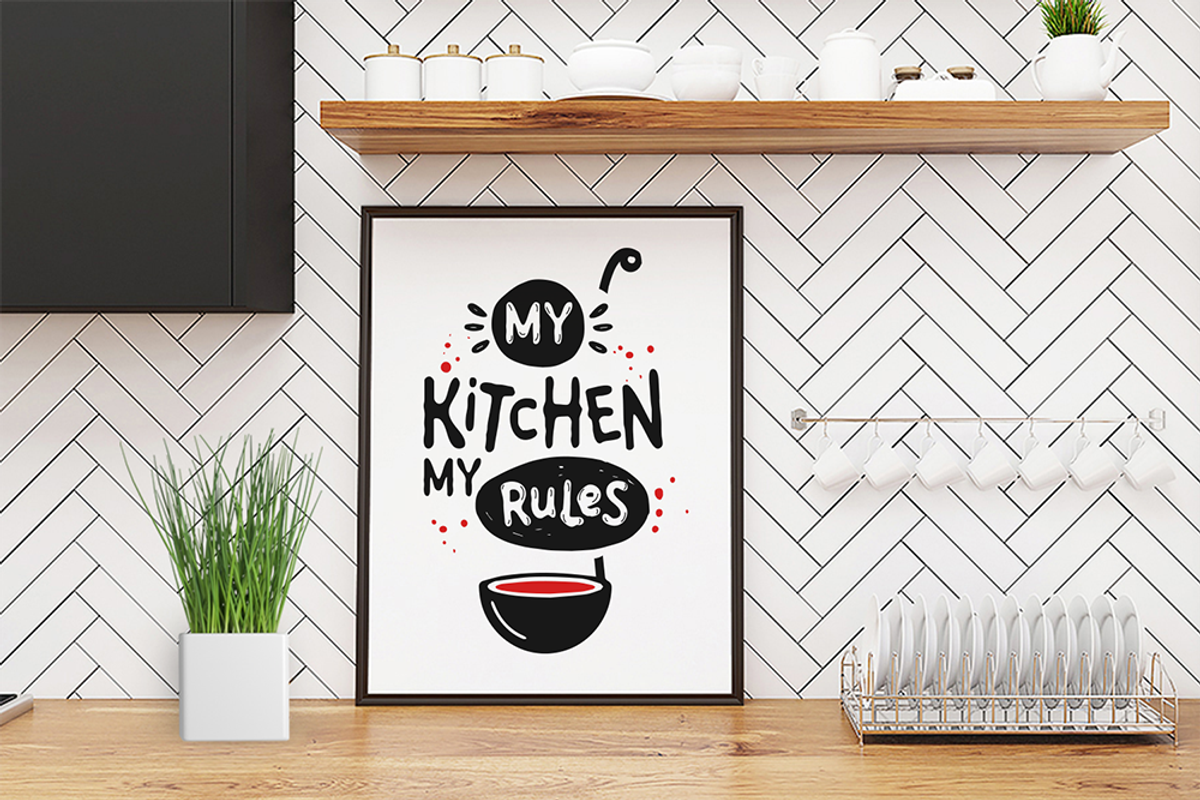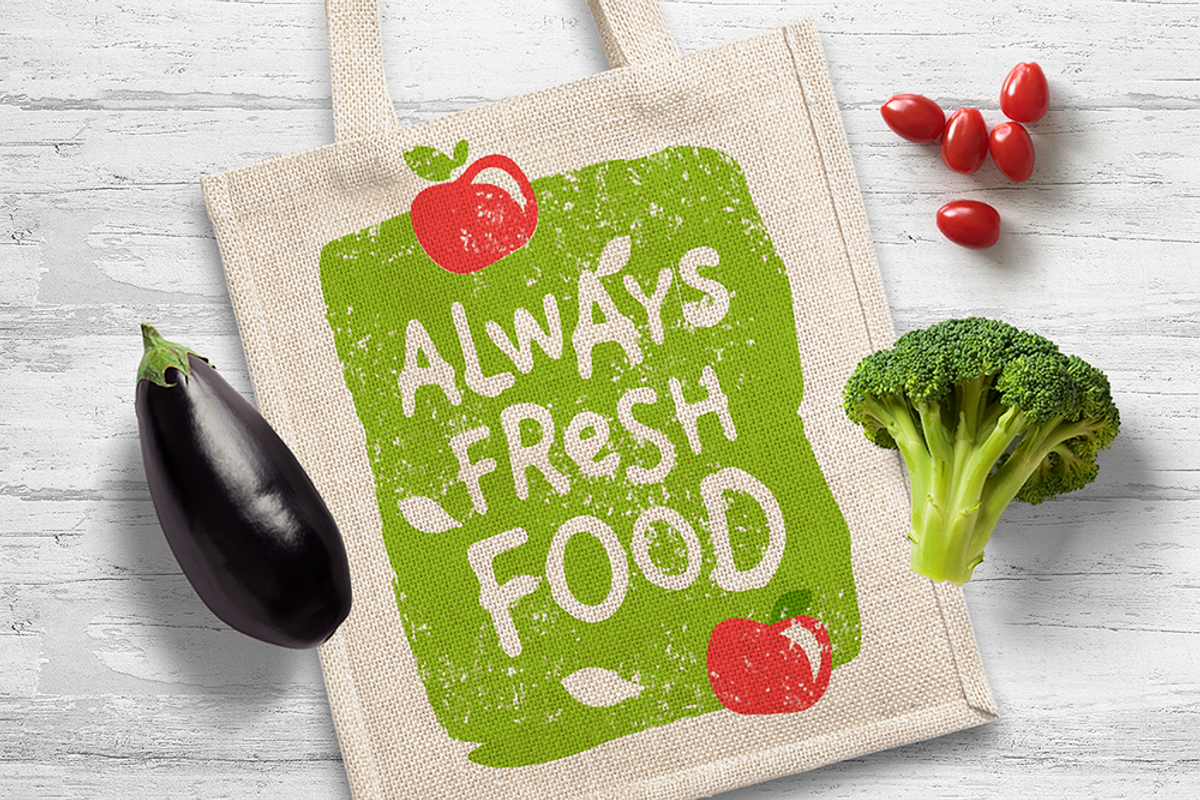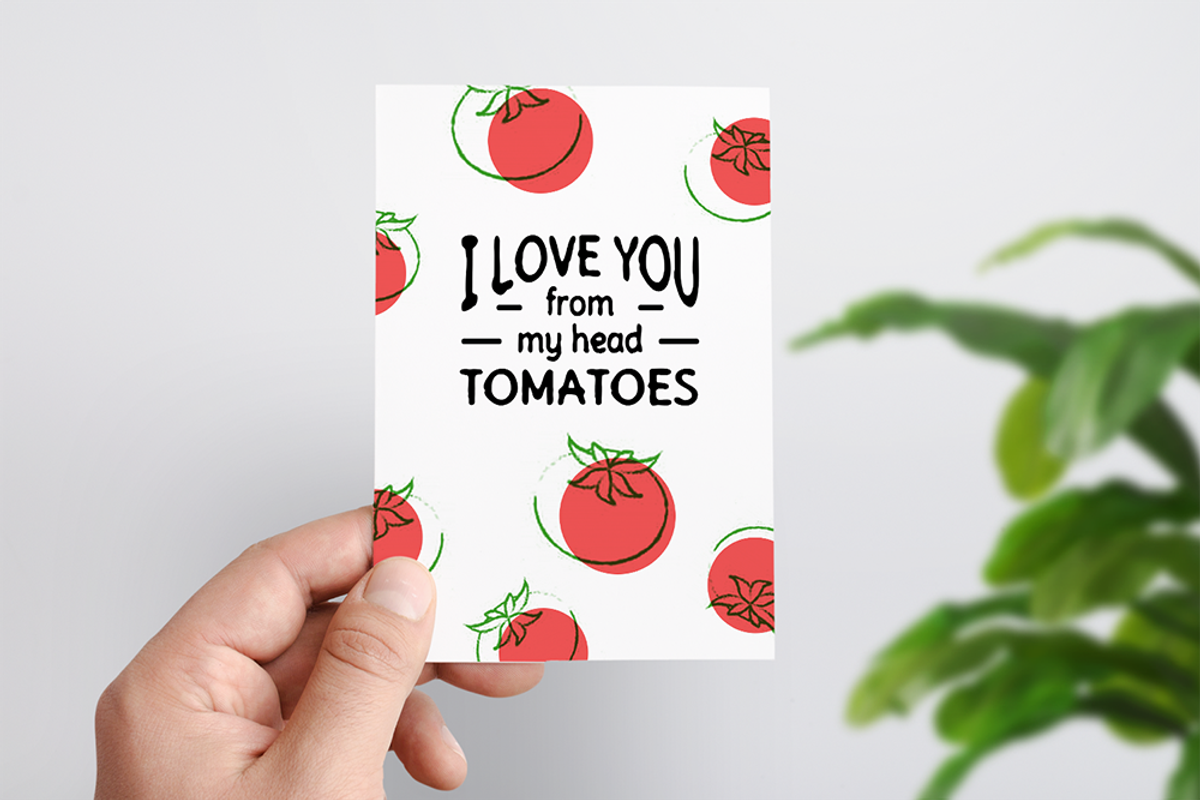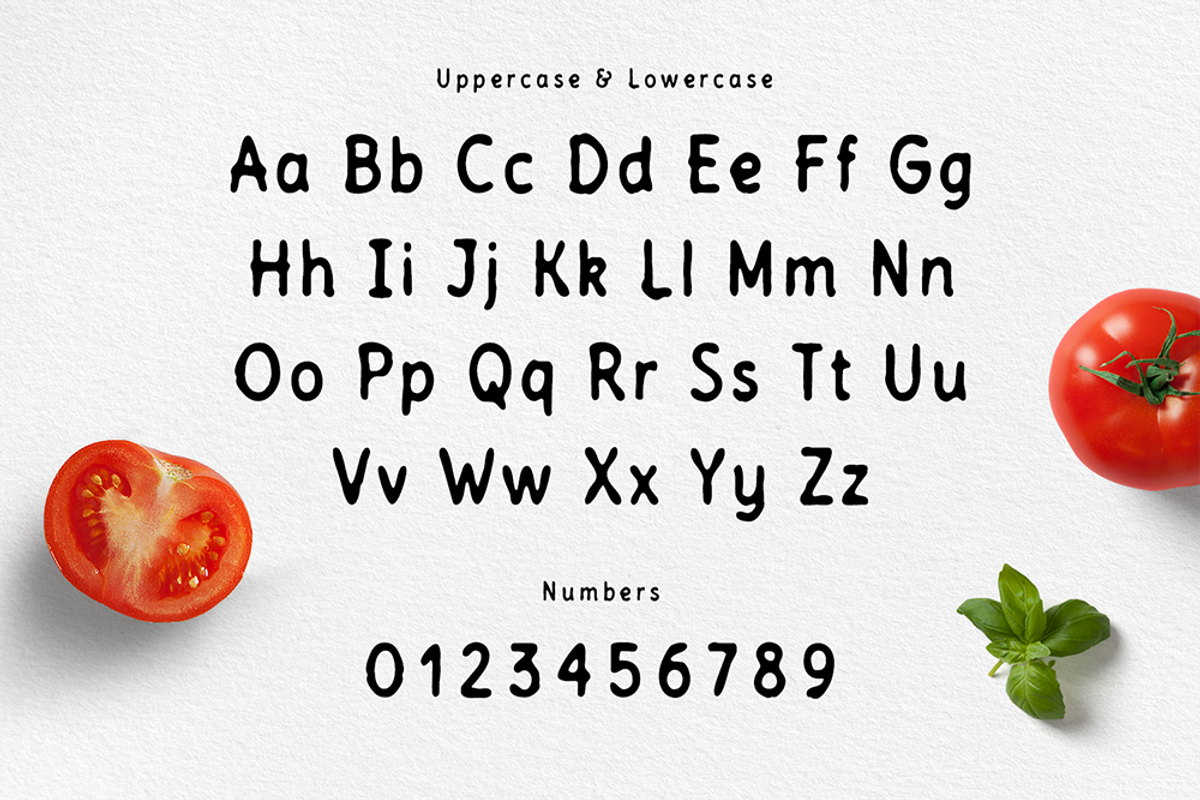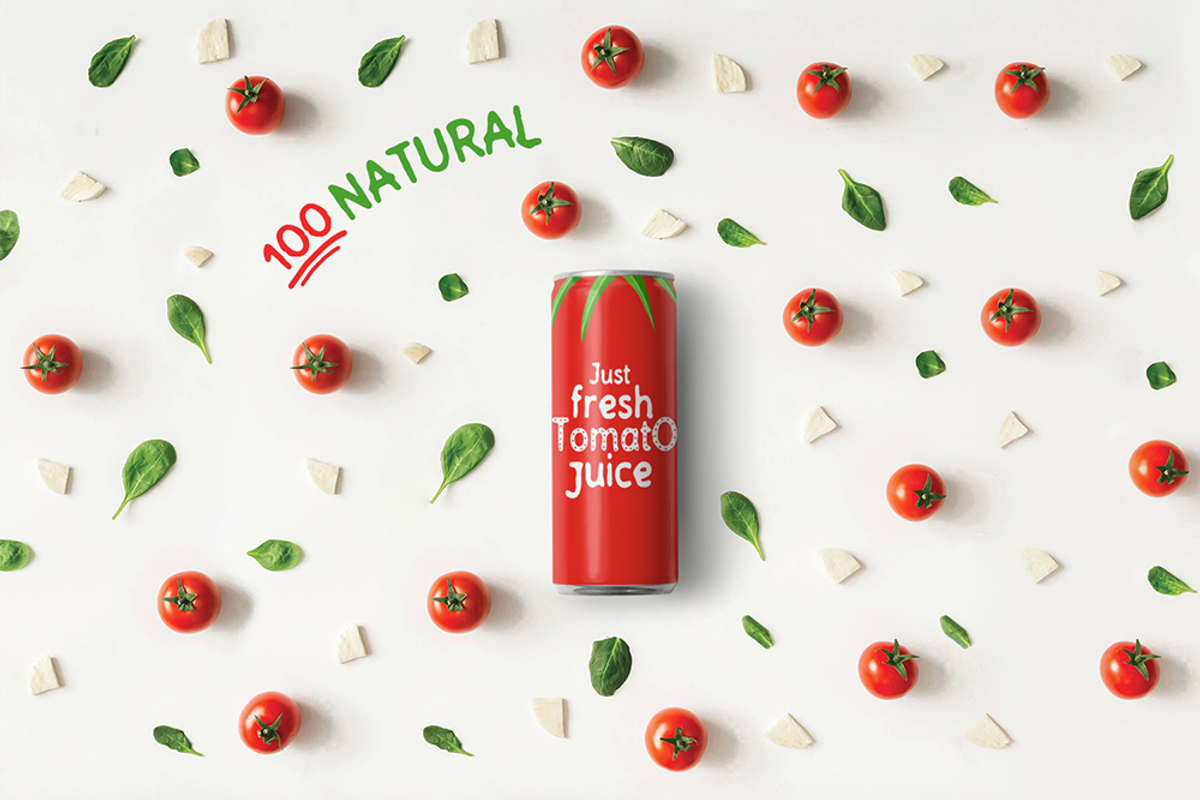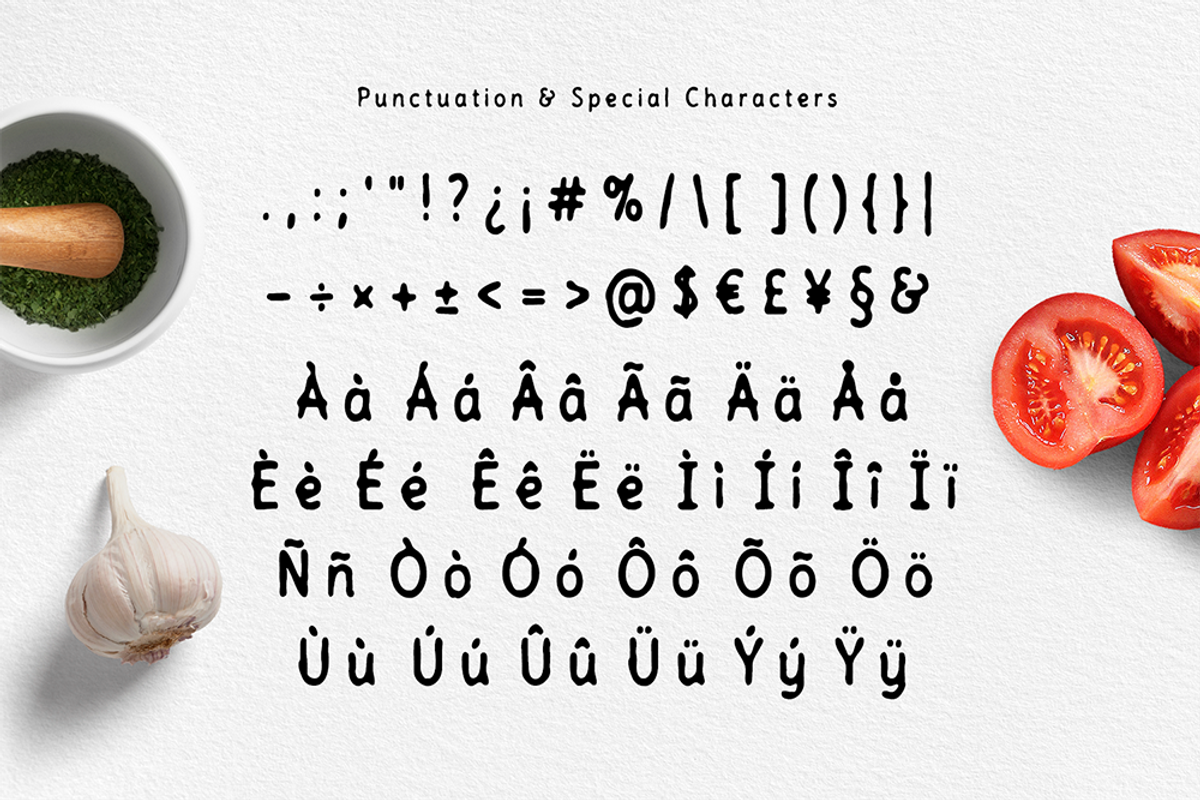
Tomatino. Handmade Sans Serif Font
Hi there! I’m glad to introduce the new handmade sans-serif font - Tomatino.
Foreign Languages Support: ÀÁÂÃÄÅÇÈÉÊËÌÍÎÏÑÒÓÔÕÖØÙÚÛÜÝßàáâãäåæçèéêëìíîïñòóôõöøùúûüýÿ